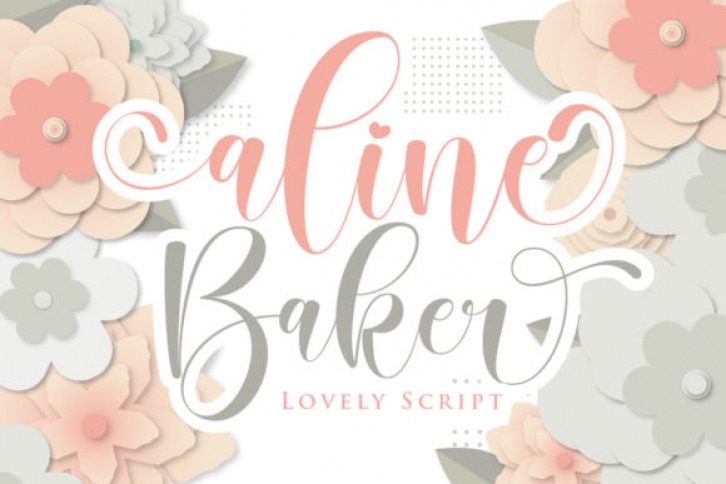
Aline Baker is a romantic, fashionable and sweet script font. It is PUA encoded, which means you can access all of the glyphs and swashes with ease! Get inspired by this delicate font and create ravishing designs.